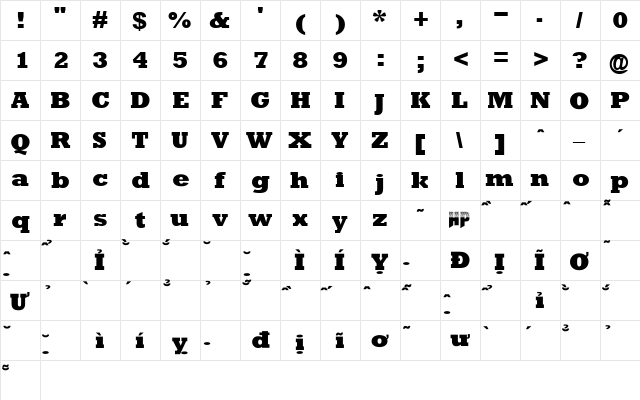
HP-Rockwell Regular
Design Context for HP-Rockwell Typeface
HP-Rockwell is a composed and adaptable typeface that performs quietly and consistently across a wide range of design contexts.
Pro Tip: Use HP-Rockwell in both headline and body roles to test its range before committing to a single application.